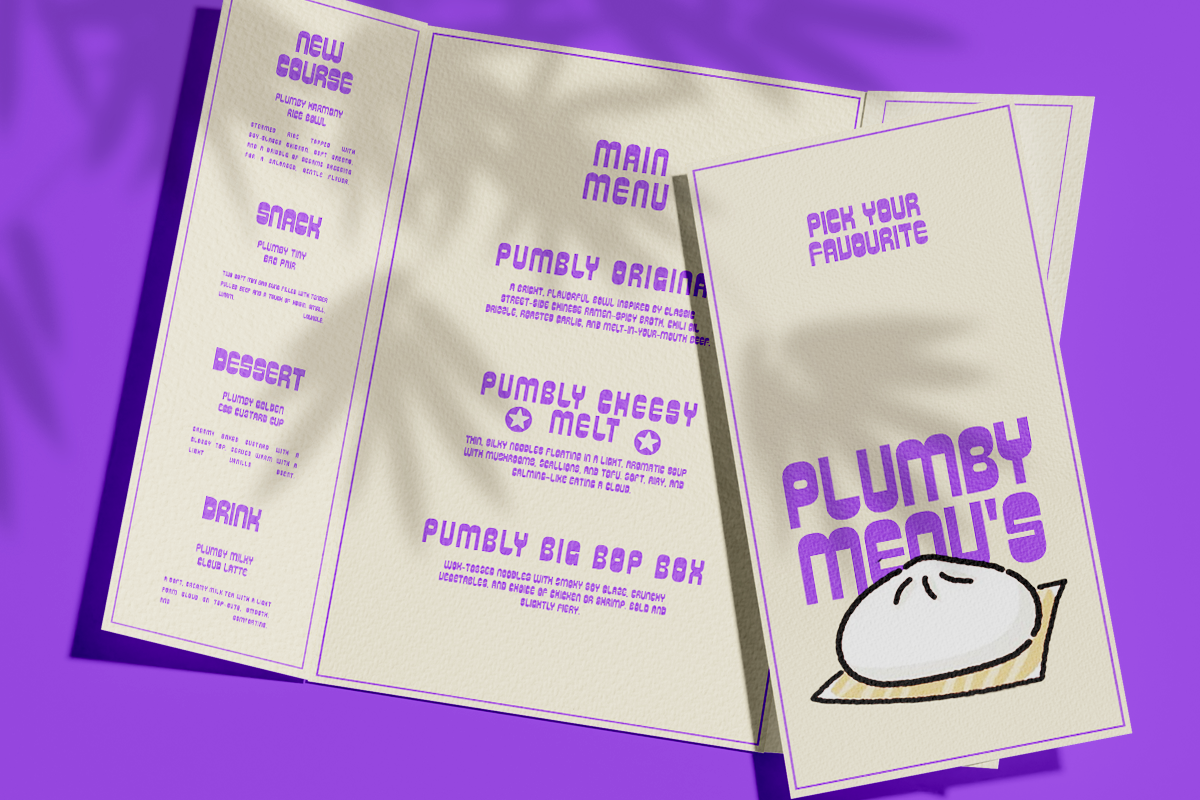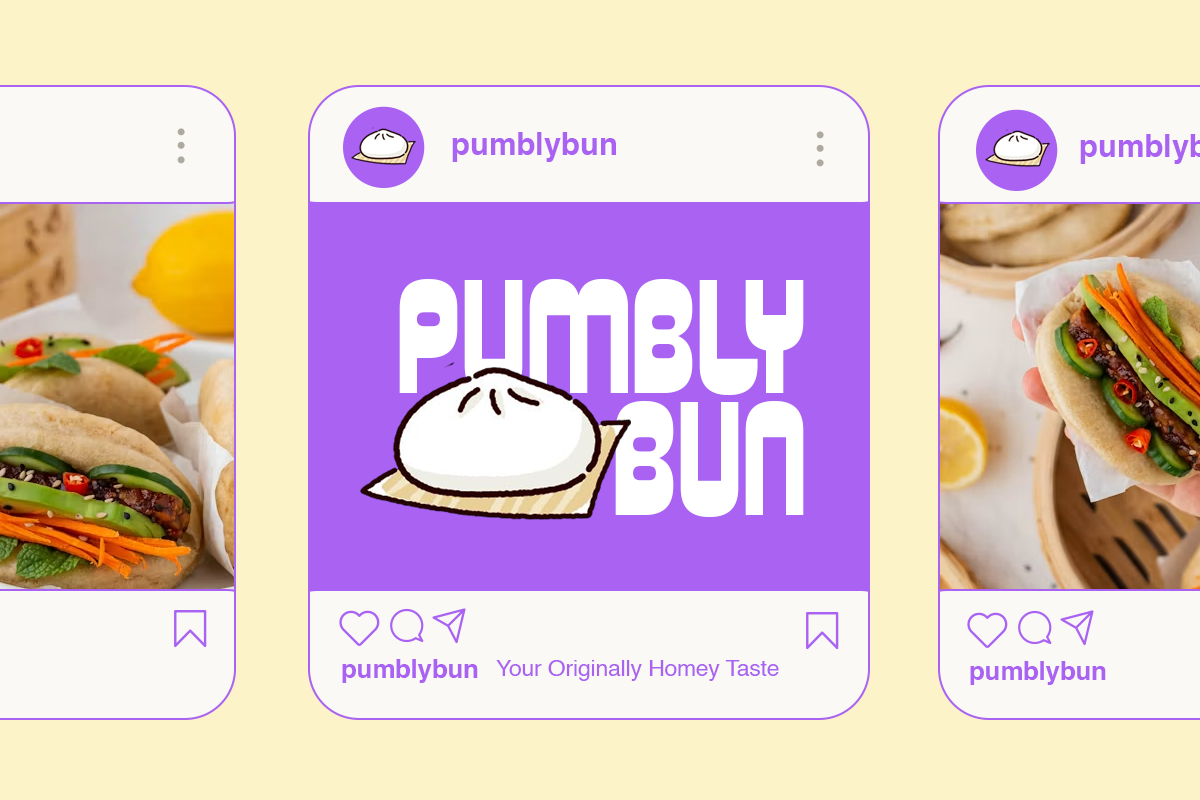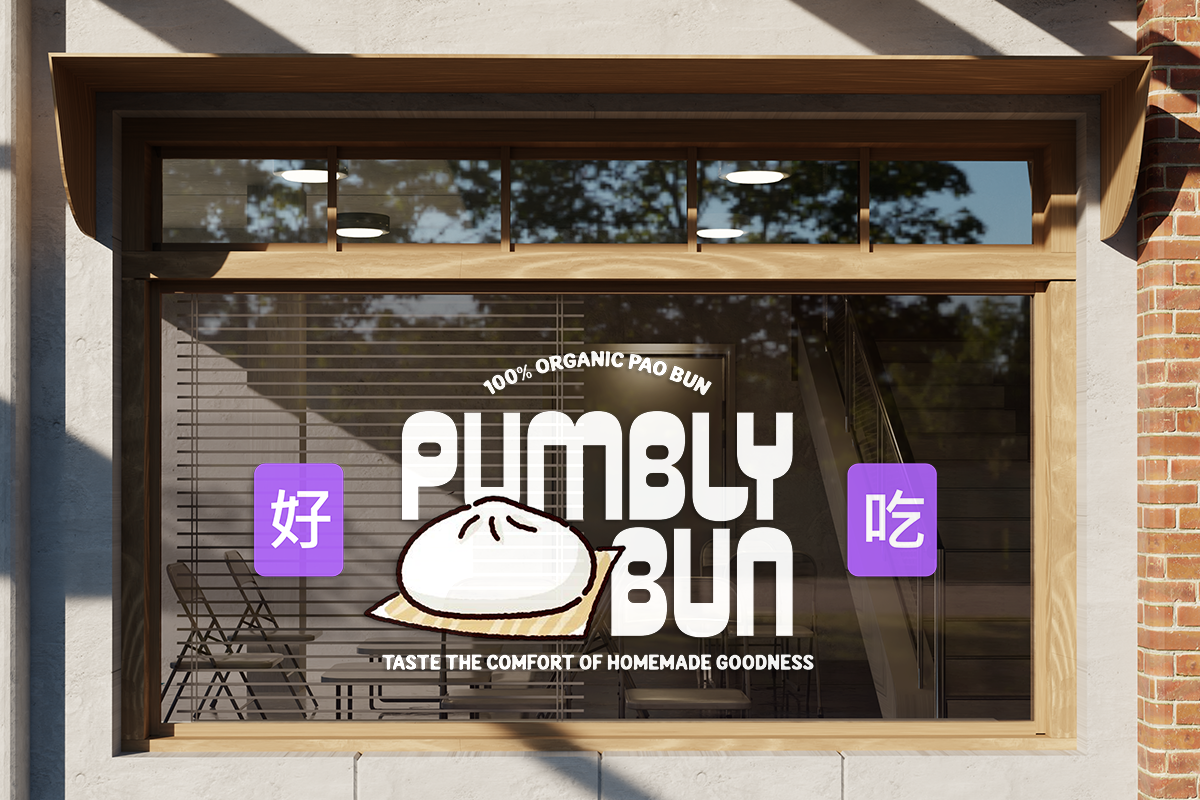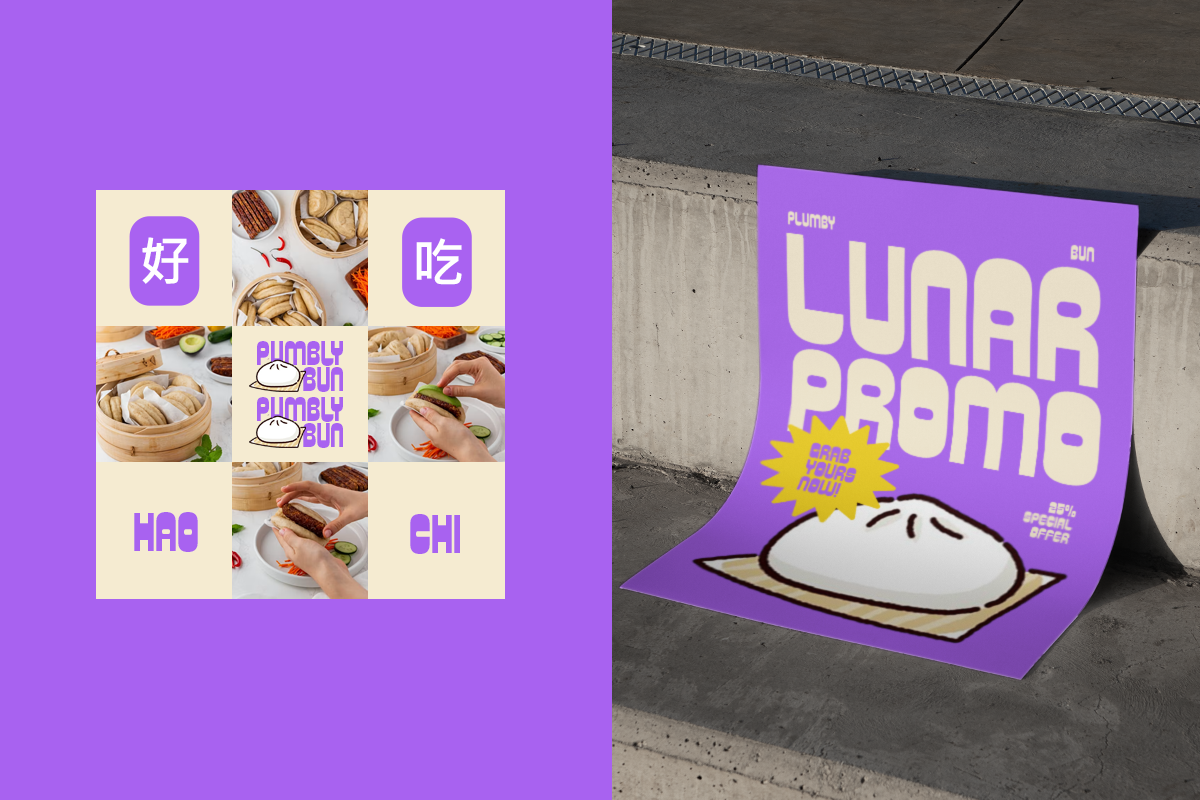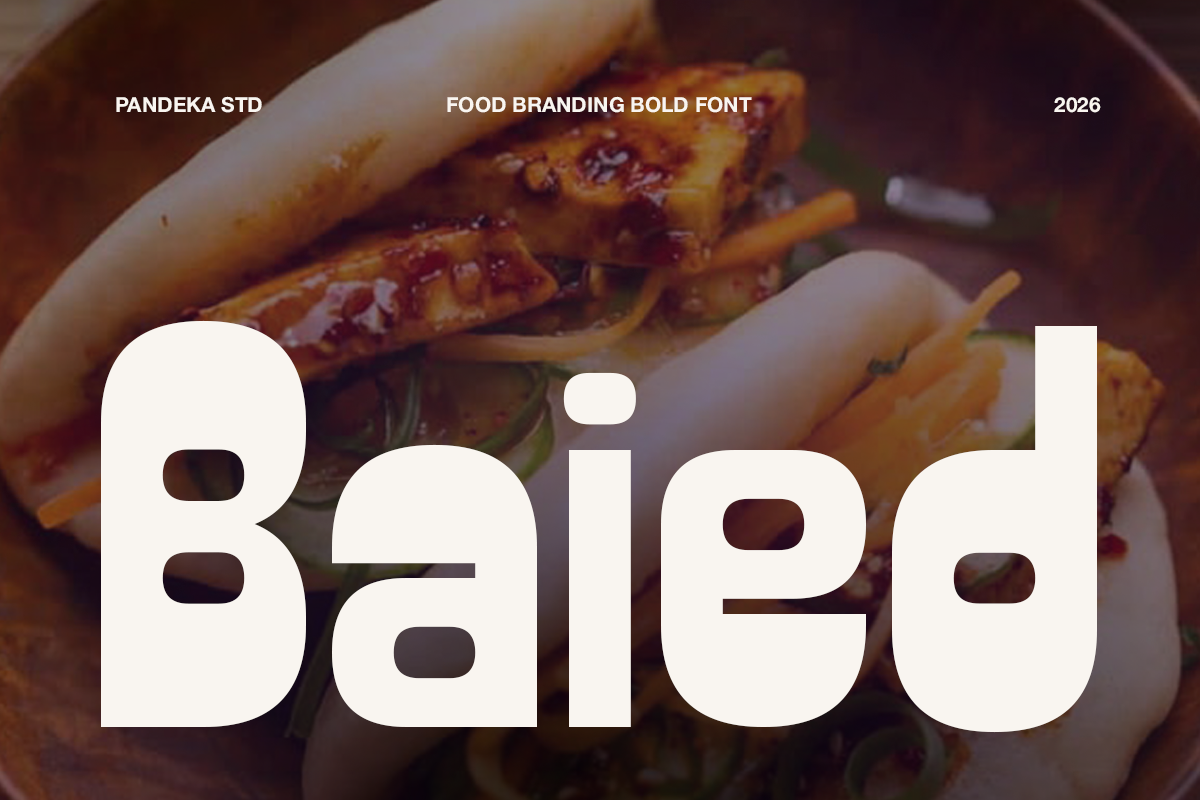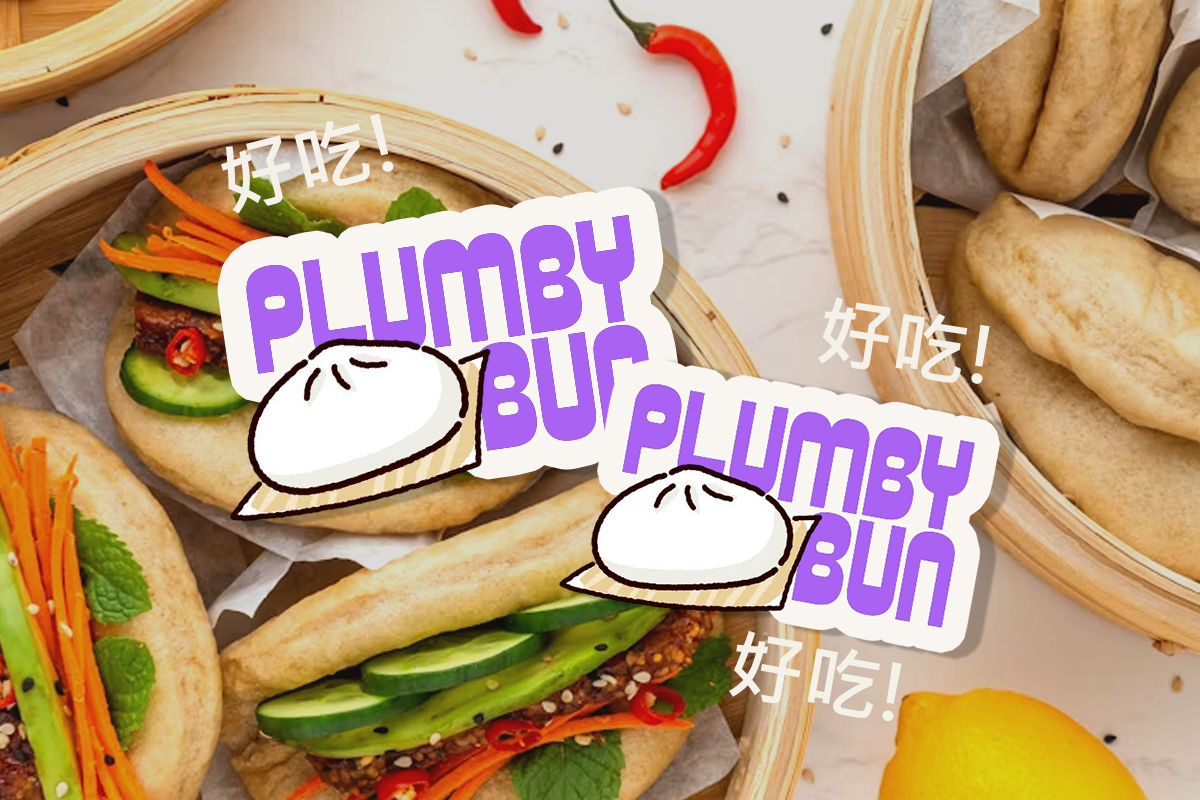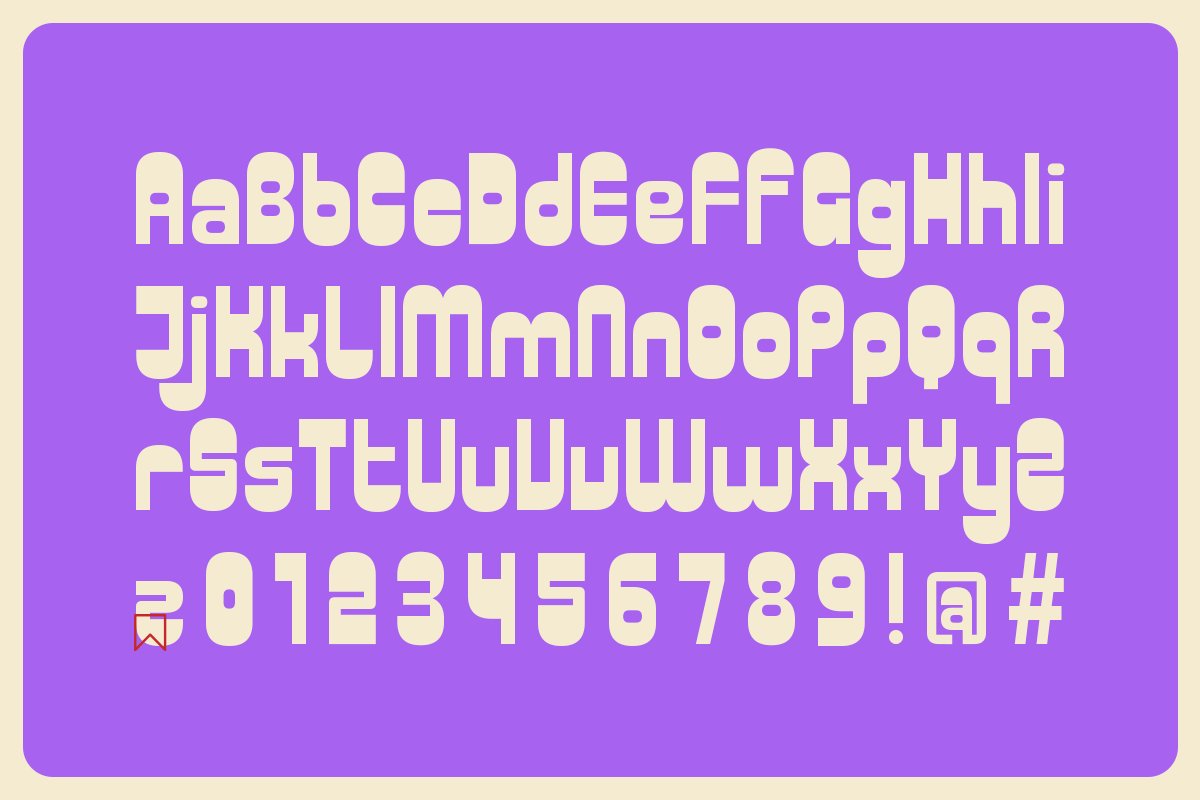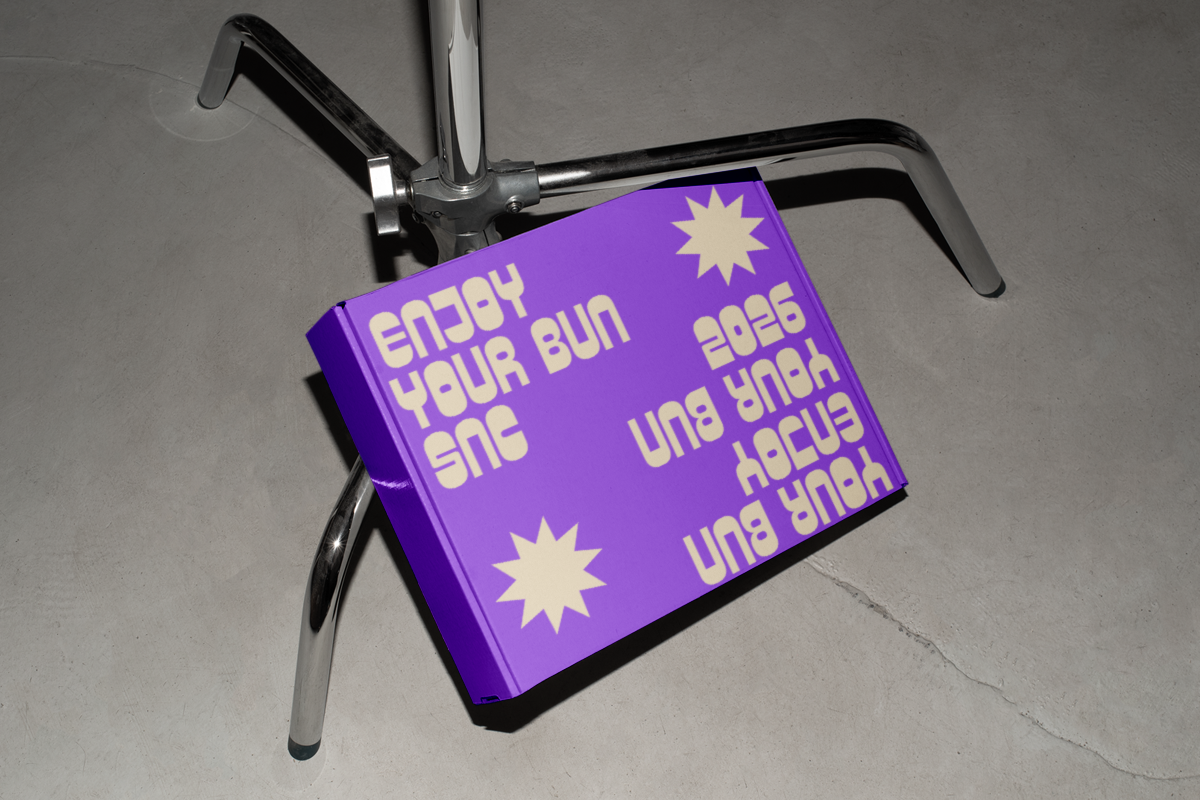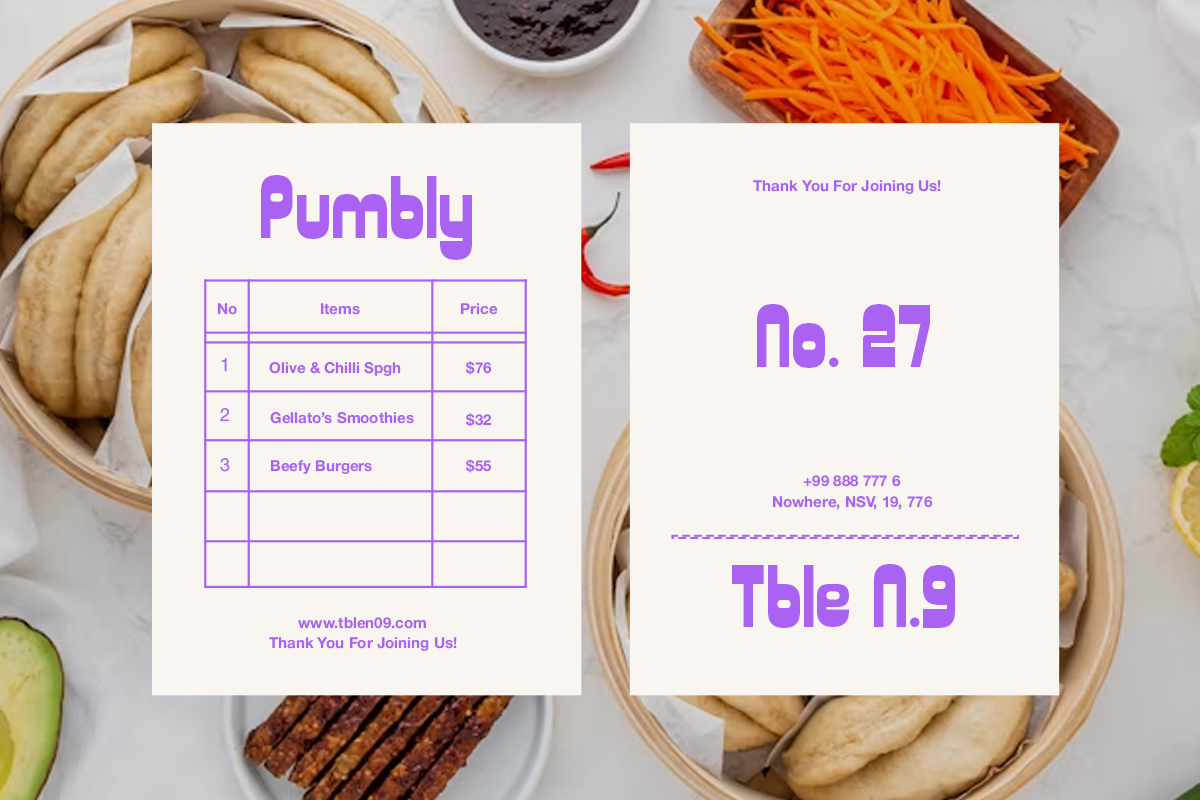
Baied - Food Branding Bold Font
Baied is a bold and playful food branding font with a chunky, rounded character that brings a fun and energetic personality to food-related designs. Its distinctive letterforms make it ideal for creating memorable headlines, logos, and visual identities with a youthful and approachable feel.
This font comes in 2 styles: Regular and Oblique, giving you flexibility to create dynamic typography across different projects. Baied is perfect for food branding, restaurant logos, packaging, menus, café graphics, social media content, posters, signage, and promotional designs.
Full Character Set: Uppercase, lowercase, numbers, symbols, and punctuation